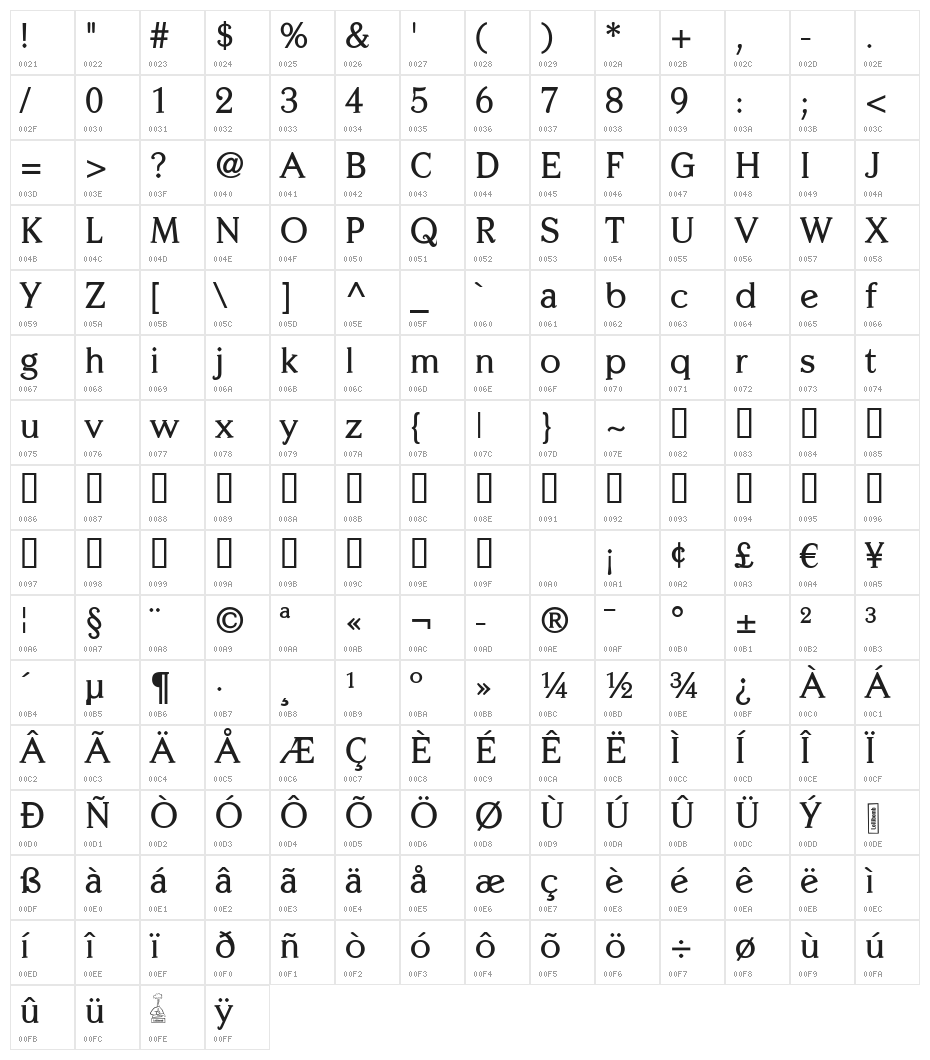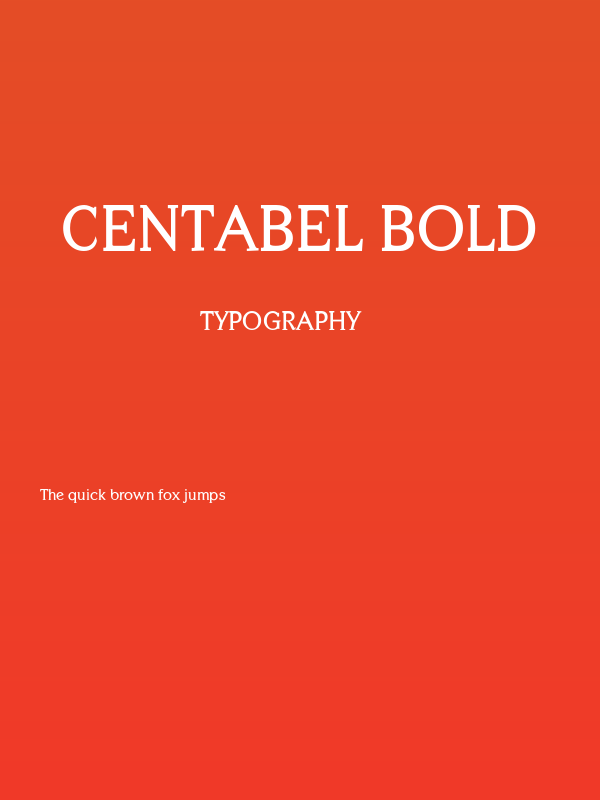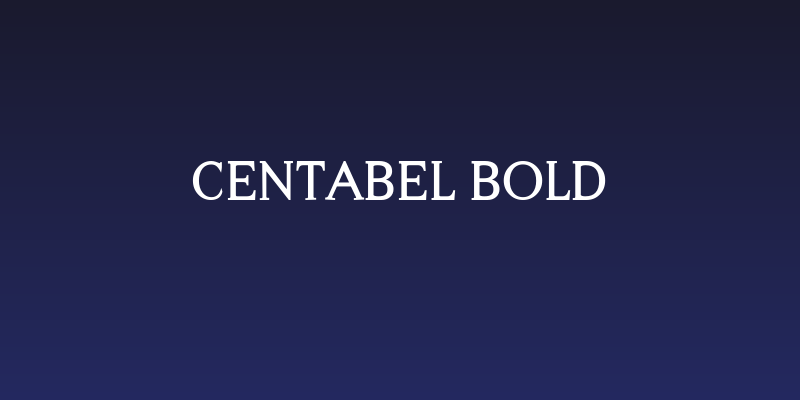
Centabel Bold Font
Centabel Bold Description
This font exhibits a classic serif style with a bold weight, making it highly legible and suitable for various design applications. The characters are well-defined with a moderate contrast between thick and thin strokes, providing a balanced and elegant appearance. The uppercase letters are slightly taller than average, giving a commanding presence, while the lowercase letters maintain a consistent x-height for readability. The numerals are clear and distinct, ensuring they stand out in any context. Special characters are crafted with precision, adding to the font's versatility.
| Proposed Projects | Ideal for editorial design, book covers, branding, and formal invitations. |